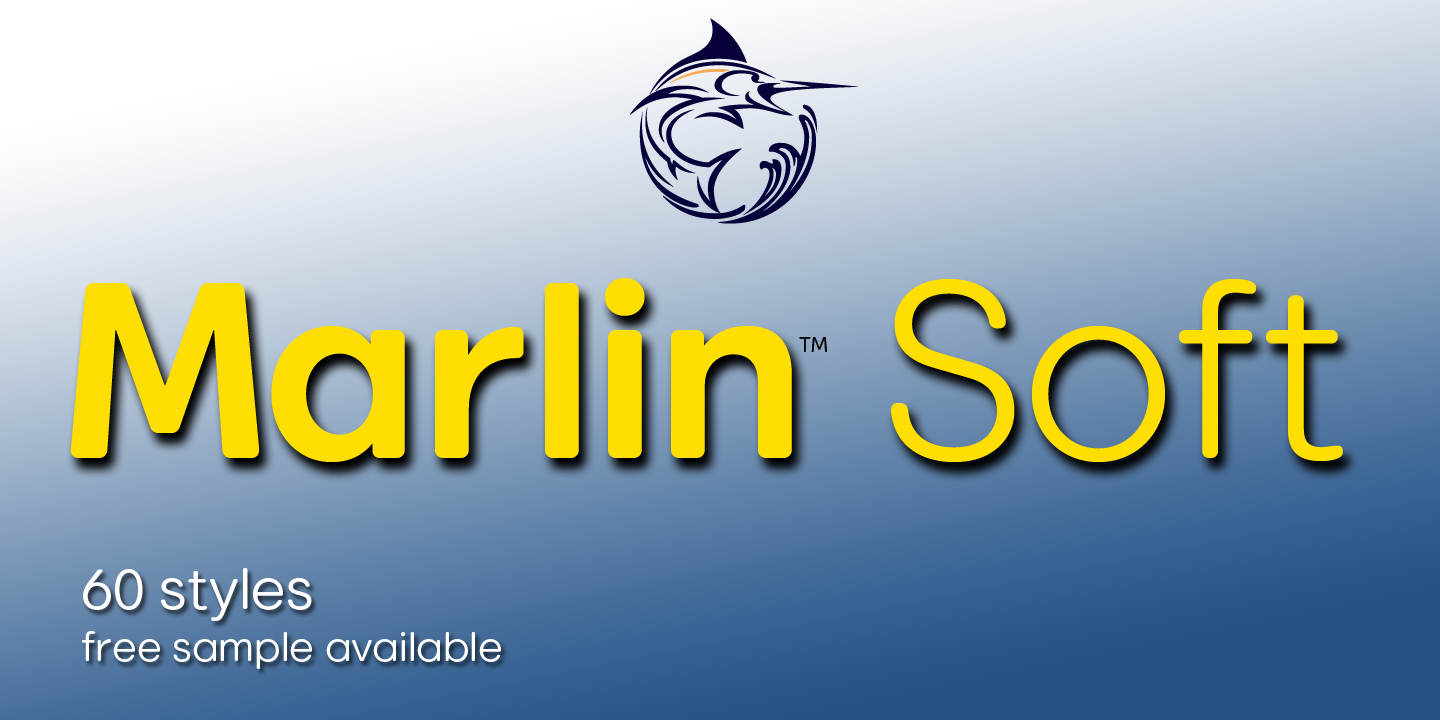
The Marlin Soft Font is an excellent choice for projects that seek a friendly, modern, and approachable aesthetic with a touch of warmth. Its rounded edges and clean lines make it perfectly suited for children's brands, casual web design, mobile app interfaces, packaging for food and beverages, educational materials, and any design that benefits from a soft, inviting, and highly legible typeface. Its gentle character makes it ideal for conveying a sense of comfort, sincerity, and contemporary appeal.
What makes Marlin Soft Font so exciting is its inherent ability to make text feel warm and welcoming. The subtle rounding of its letterforms eliminates harshness, providing a smooth and pleasant reading experience. This font isn't just about conveying information; it's about creating a positive emotional connection with the viewer. It strikes a perfect balance between modern simplicity and a human touch, making your content feel both professional and incredibly approachable. Its clean readability ensures your message is delivered clearly, while its soft edges add a delightful friendliness that sets it apart.
The Marlin Soft Font family is typically comprehensive, offering a wide array of weights and styles to provide maximum flexibility for designers. You can expect a full spectrum from Thin and Light to Regular, Medium, SemiBold, and Bold, often accompanied by complementary italic versions for each weight. This broad family allows for sophisticated typographic hierarchies, enabling precise control over emphasis, flow, and visual balance within your designs. Some versions might also include condensed styles or specialized numerals to further expand its utility.
Whether you're developing a user-friendly website, designing charming product packaging, or crafting engaging educational content, the Marlin Soft Font Free Download offers an indispensable tool. Its contemporary appeal and soft, inviting characteristics make it a premier choice for any project that requires a typeface of gentle elegance and excellent readability.